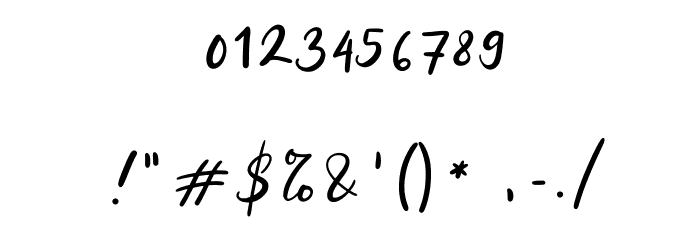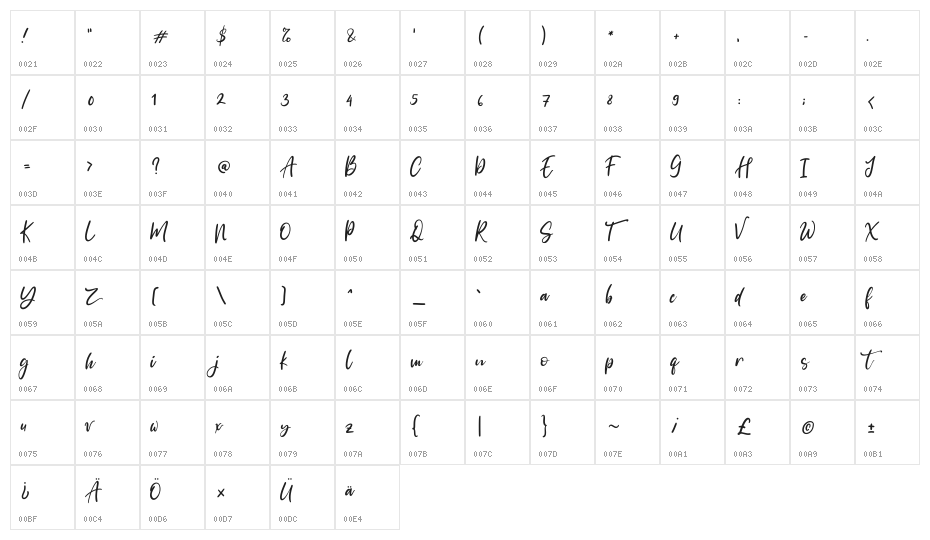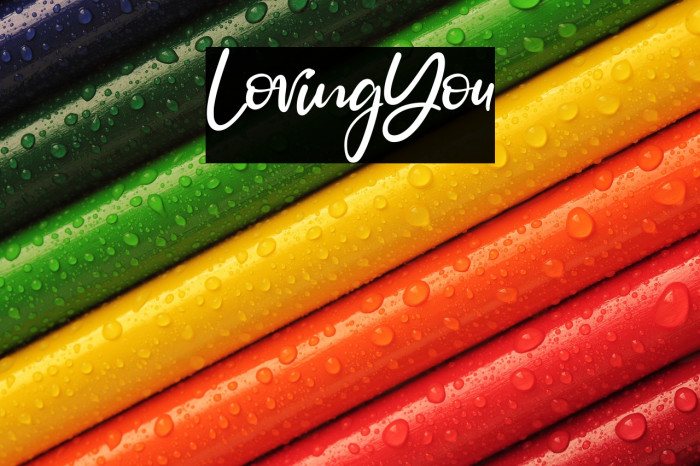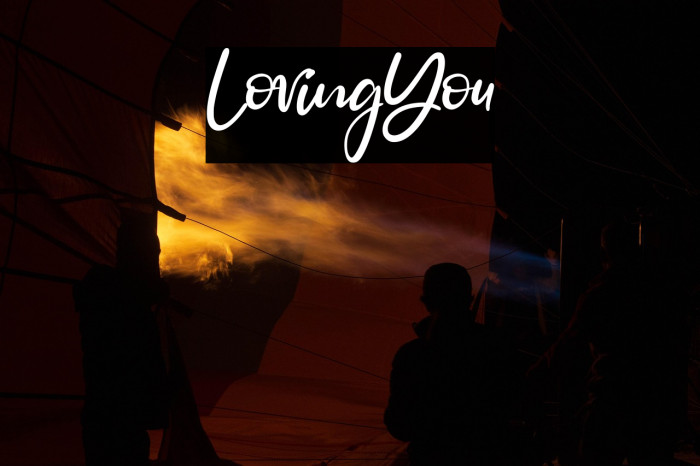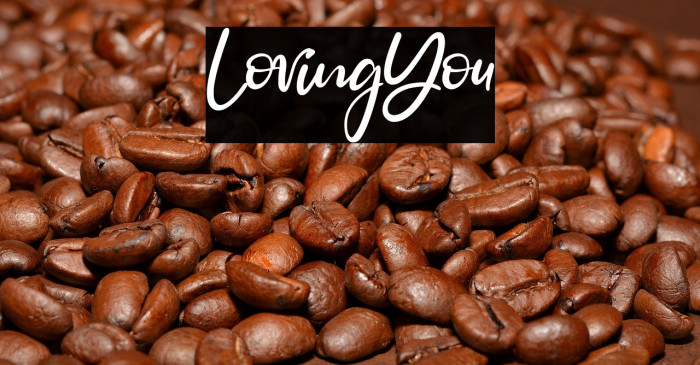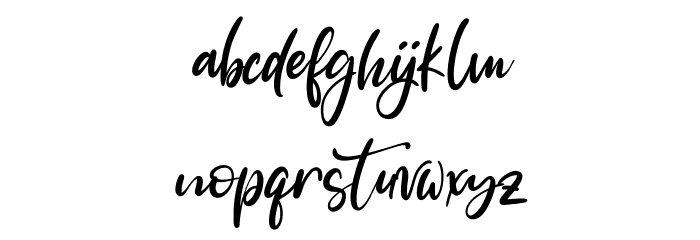
LovingYou Font
LovingYou Description
This font exudes a lively and expressive handwritten style, characterized by its fluid and dynamic strokes. The letters are elegantly connected, creating a sense of movement and rhythm. The uppercase letters are bold and slightly slanted, while the lowercase letters maintain a consistent flow with occasional flourishes. The numerals are clear and distinct, complementing the overall aesthetic. Special characters are thoughtfully designed to match the font's energetic vibe. This font is perfect for projects that require a personal touch or a creative flair.
| Proposed Projects | Ideal for wedding invitations, greeting cards, personal branding, and creative projects that require a personal touch. |